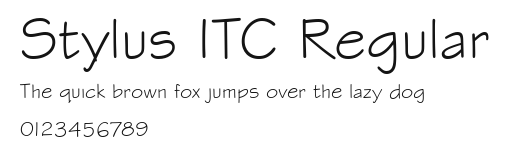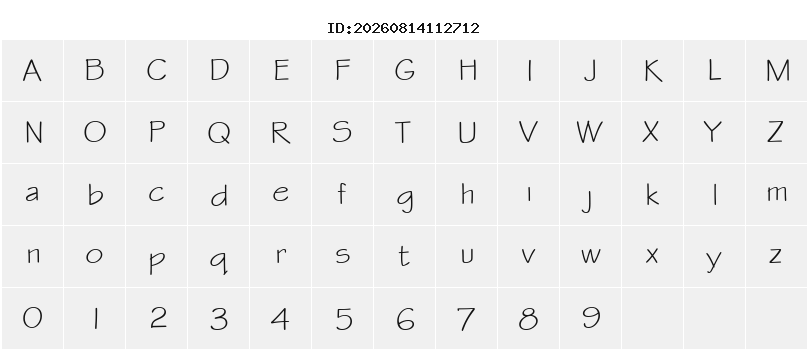
• Font Name: Stylus ITC Regular
• Full Font Name: Stylus
About Stylus ITC Regular.ttf
Stylus ITC Regular.ttf is a modern, elegant sans-serif font designed for ultimate readability and visual harmony. Perfect for branding, headlines, web design, and print materials.